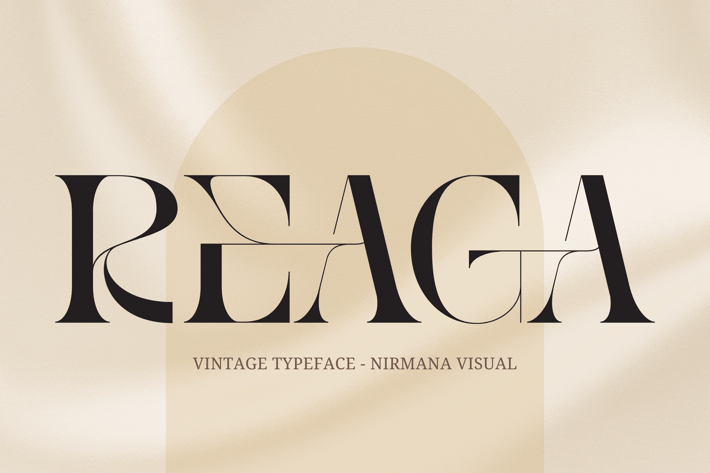
Reaga Vintage - Branding Logo Font
Reaga Vintage Font offers beautiful typographic harmony for a diversity of design projects, including logos & branding, social media posts, advertisements & product designs.